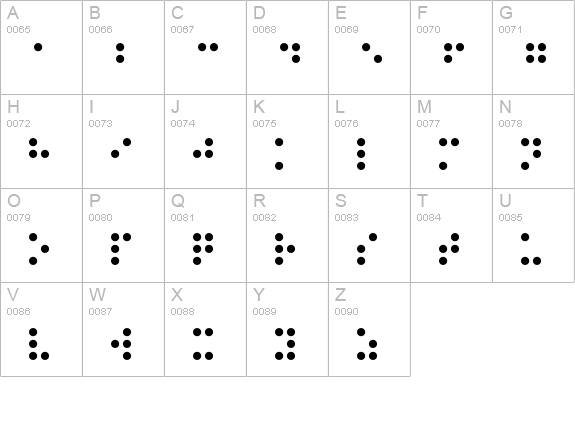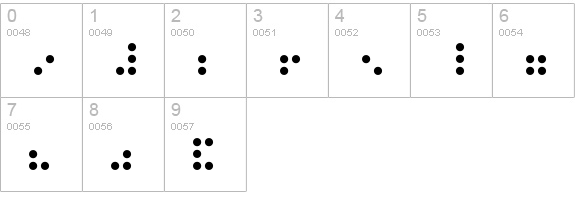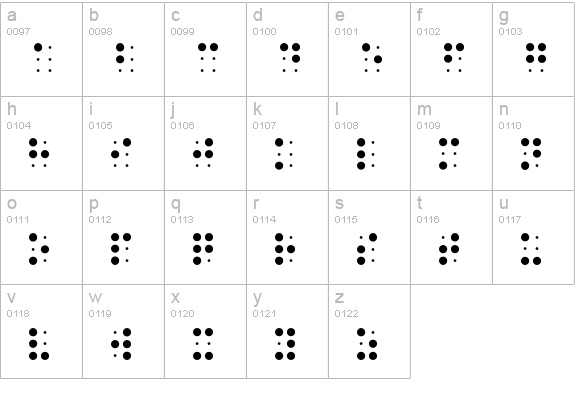
BRAILLE-REGULAR Font Details
BRAILLE-REGULAR is the standard, neutral variant in the BRAILLE typeface family \xE2\x80\x94 well suited to general body text, paragraphs, and standard typographic work.
Braille-Regular font is a versatile and highly legible typeface designed specifically for braille writing systems. This font features clear and distinct raised dots that represent each letter of the alphabet, making it ideal for visually impaired individuals and those seeking to create braille documents. The Braille-Regular font is not only functional but also aesthetically pleasing, with a clean and modern design that enhances readability. Whether you are looking to transcribe documents into braille or create accessible materials, this font is a reliable choice. Best of all, Braille-Regular font is completely free to download at FontsMarket.com. Take advantage of this opportunity to access a high-quality braille font that will cater to your accessibility needs. Download Braille-Regular font today and enhance your projects with its clarity and precision.